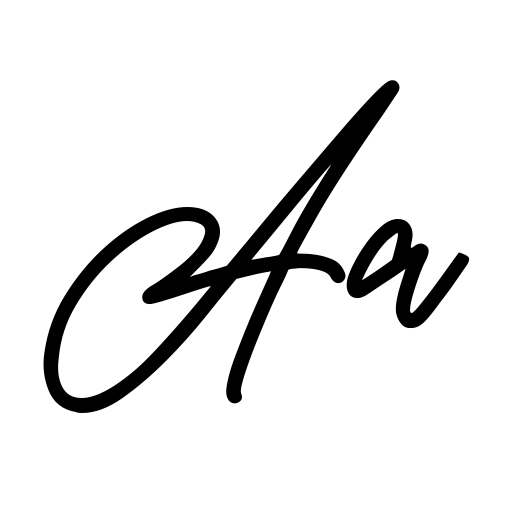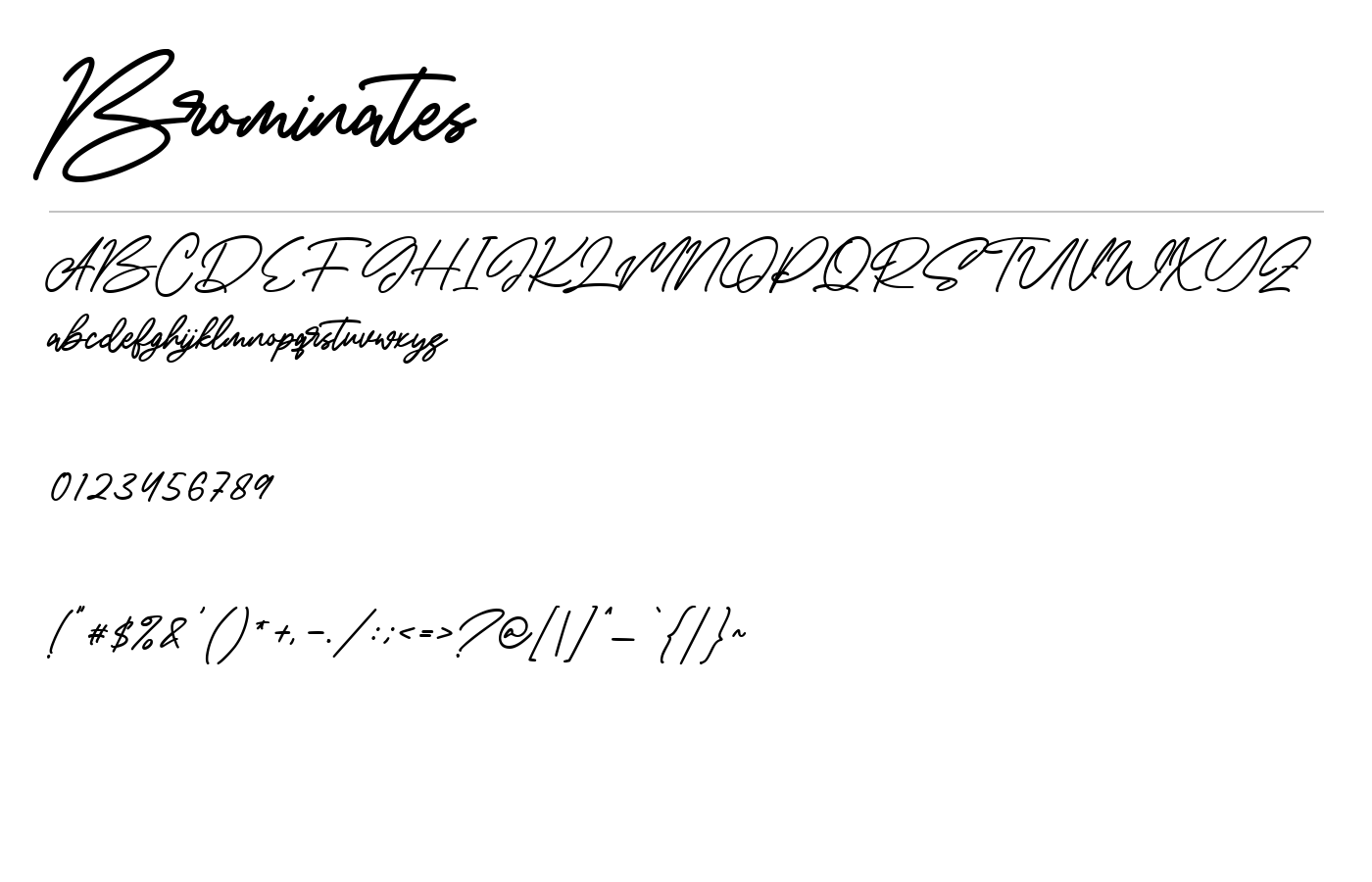
Brominates is a sleek, modern script font with a light, flowing style that mimics elegant handwriting. Its fine, slightly varied strokes and natural connecting letterforms create a graceful, personal touch, making it ideal for invitations, branding, and projects that seek a stylish yet approachable feel. This font works best in display uses where a chic, sophisticated vibe is desired.
Brominates Font
About Brominates Font
| Font family | Brominates Font |
| Designer | MaulanaCreative |